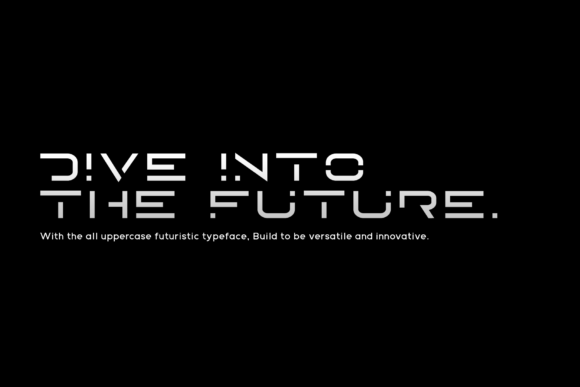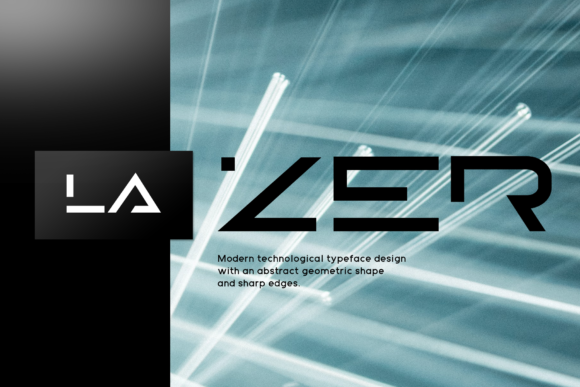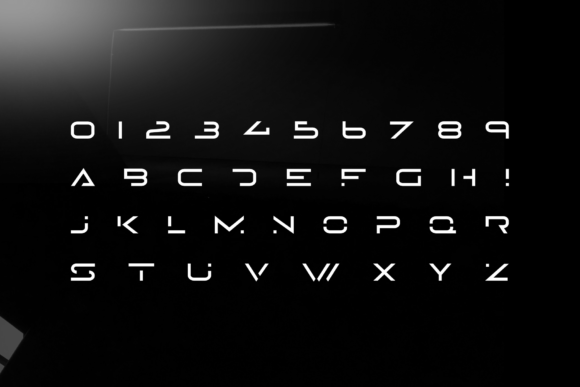
Introduction to Lazer Font
Have you ever stared at a blank canvas, eager to bring your creative idea to life, only to be met with an overwhelming feeling of indecision? The blank page can be daunting, but the right design element can spark inspiration and set your imagination ablaze. That’s where Lazer Font comes in – a high-quality, minimalist display font that’s sure to elevate your creative project and make it stand out.
As a valuable resource for designers, Lazer Font offers a unique blend of abstract shapes and sharp lines that can add a touch of sophistication to any design. With its transparent background, you can easily integrate it into your existing design without compromising on style or functionality. Whether you’re working on a graphic design project, a digital art piece, or a web design, Lazer Font is the perfect design resource to have in your arsenal.
Key Features of Lazer Font
- High-quality font design suitable for creative projects, with a unique, futuristic style.
- Features a transparent background, allowing for seamless integration with images and other design elements.
- Designed with a high level of detail and precision, resulting in a crisp and clear display at resolutions up to 300 DPI.
- Unique characteristics include a bold, metallic aesthetic and a range of stylistic alternates to enhance creative expression.
Honest Review: Lazer Font
I recently had the chance to work with the Lazer Font for a creative project, and I must say it’s been a game-changer. This high-quality font is perfect for any design resource that needs a modern, edgy look.
Here are some things that work well with the Lazer Font:
- ✨ Modern and sleek design aesthetic
- ✨ Versatile and suitable for a wide range of creative projects
- ✨ Easy to customize and style
However, I do have to mention a few limitations:
- ⚠️ Limited font variations (only a few options available)
- ⚠️ Not ideal for projects that require a lot of text
Overall, I’m really impressed with the Lazer Font. Its unique design and free download make it a valuable addition to any design resource. While it may have some limitations, it’s definitely worth checking out for your next creative project.
Common Use Cases for Lazer Font
Lazer Font is ideal for use in presentations, documents, and designs requiring a high-quality, creative font with a transparent background.